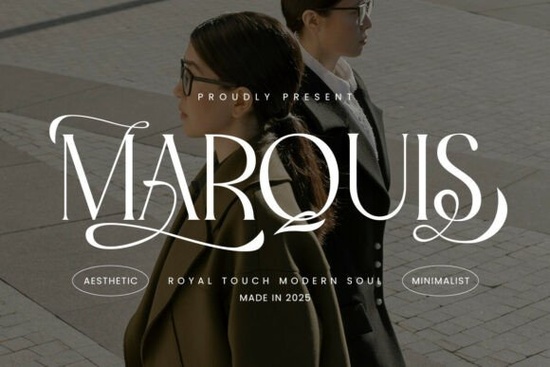
Looking for a serif font that feels both timeless and refined without being stuffy? Marquis - Elegant Modern Serif Font is a modern serif typeface designed for creatives who appreciate clean lines and subtle luxury. It pairs classic letter shapes with a minimalist sensibility, making it a versatile pick for branding, editorial layouts, packaging, and social media graphics.
What Makes Marquis Different from Other Modern Serif Fonts?
Plenty of serif fonts lean either too traditional or too trendy. Marquis sits in a sweet spot between the two. Its graceful curves and fine stroke details give it a polished look, while the overall structure stays clean and easy to read at various sizes. The included stylish ligatures add character without overwhelming the design a detail that matters when you're working on logo concepts or headline compositions.
Compared to fonts like a bold decorative serif option or something more playful, Marquis keeps things understated. It doesn't try to be loud. Instead, it works quietly in the background, supporting your layout with a sense of calm sophistication.
Who Is This Font Best Suited For?
Marquis is a solid choice if you fall into any of these categories:
- Brand designers building identity systems that need a refined typographic foundation
- Print-on-demand sellers creating quote designs, wedding stationery, or lifestyle merchandise
- Editorial and layout designers working on magazine spreads, lookbooks, or blog headers
- Small business owners designing menus, price lists, or product packaging
- Social media creators who want a polished, premium look in their post templates
The font works especially well for feminine branding, beauty products, fashion-related content, and lifestyle blogs. But its clean geometry also pairs nicely with modern minimalist aesthetics think tech startups, interior design portfolios, or wellness brands.
What Styles and Weights Does It Include?
Marquis comes with a full character set including uppercase and lowercase letters, numerals, punctuation, and multilingual support. The ligatures are a standout feature they connect certain letter pairs in a way that feels organic and elegant, which is particularly useful in logo design and display text.
When paired with a simple sans-serif for body copy, Marquis creates a strong typographic hierarchy. If you're building a visual brand system, you might combine it with something like a soft handwritten style for accents or contrast, depending on the project's tone.
What sets Marquis apart is its balance. It doesn't push too hard in any one direction. The letterforms are refined but not fussy. The overall texture is smooth and consistent, which makes it reliable across different applications from a business card to a large-format poster.
Where Can You Use Marquis in Real Projects?
Here are some practical ways designers and creators are using modern serif fonts like Marquis:
- Logo design The ligatures and clean strokes create memorable wordmarks
- Wedding invitations and stationery The elegant feel works perfectly for formal events
- Product packaging Especially for cosmetics, candles, skincare, and gourmet food
- Social media templates Instagram posts, Pinterest pins, and story backgrounds
- Website headers and hero sections Adds personality without sacrificing readability
- Book covers and chapter titles Works well for fiction, lifestyle, and self-help genres
If you're building a font library for client work, consider adding a few complementary serifs alongside Marquis. Having variety like a fresh, vibrant serif alternative for casual projects and Marquis for upscale ones gives you more flexibility without overloading your toolbox.
Tips for Pairing Marquis with Other Fonts
Good typography is about contrast and balance. Here are a few pairing ideas that work well with Marquis:
- With a geometric sans-serif Clean and modern, great for tech and lifestyle brands
- With a light handwritten font Adds warmth and personality to feminine designs
- With a monospaced typeface Creates interesting visual tension for editorial layouts
Keep body text at a comfortable size (14–16px for web) and let Marquis handle the headlines. This approach keeps your designs readable while letting the serif details shine where they matter most.